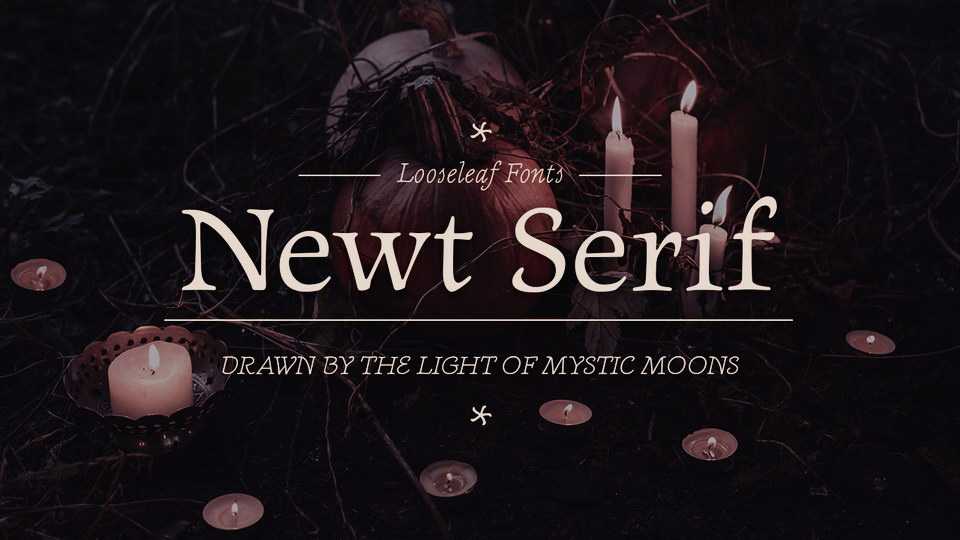
Download Newt typeface, a soft, friendly serif font family in four weights and Italics that has been described as appearing to have been “drawn by the light of mystic moons”.
Designer: Chuck Masterson